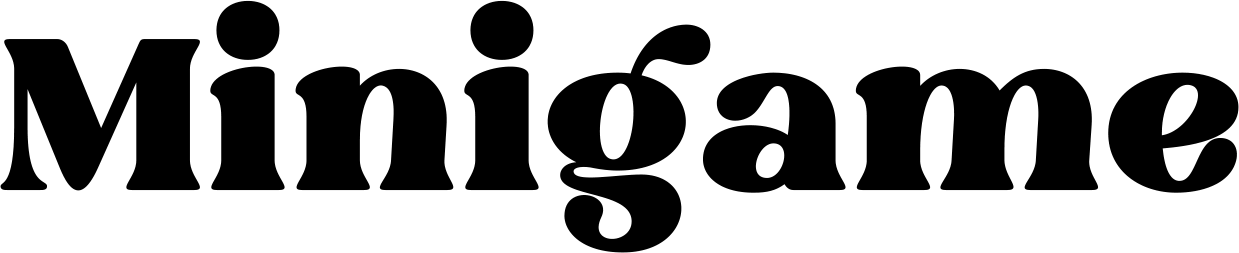
Minigame Font
Minigame font has six types of style, and you can step up by combining many other fonts to create a great and different summer theme. This elegant serif font supports all letters and presents your design on T-shirts and business cards with particular charms.
If you are traveling and would like to send a different postcard to your loved ones, this summer font with palm tree backgrounds, sea, and sunset is very nice.